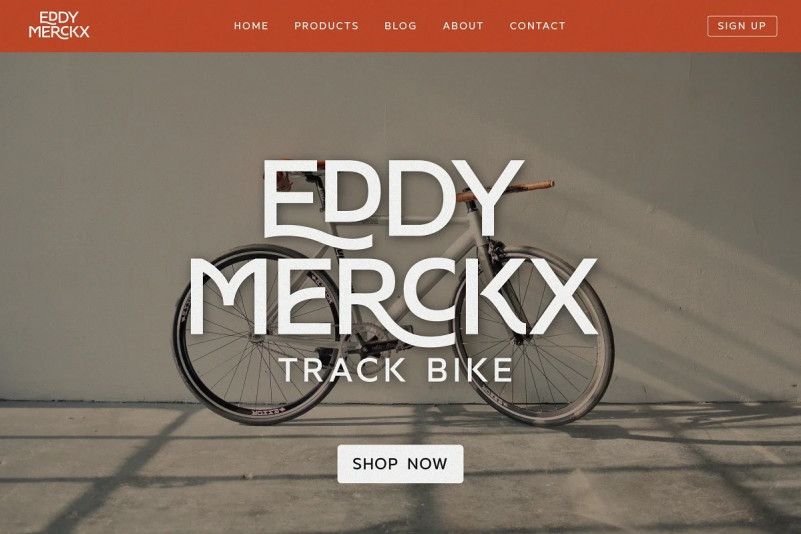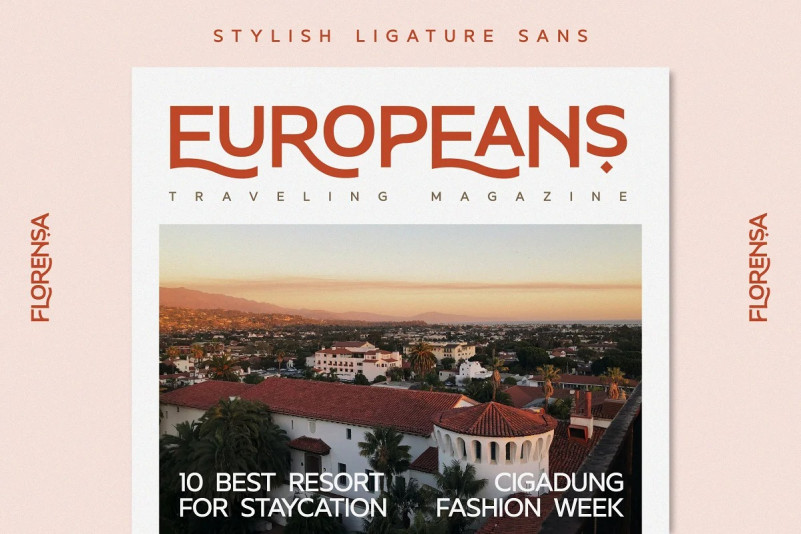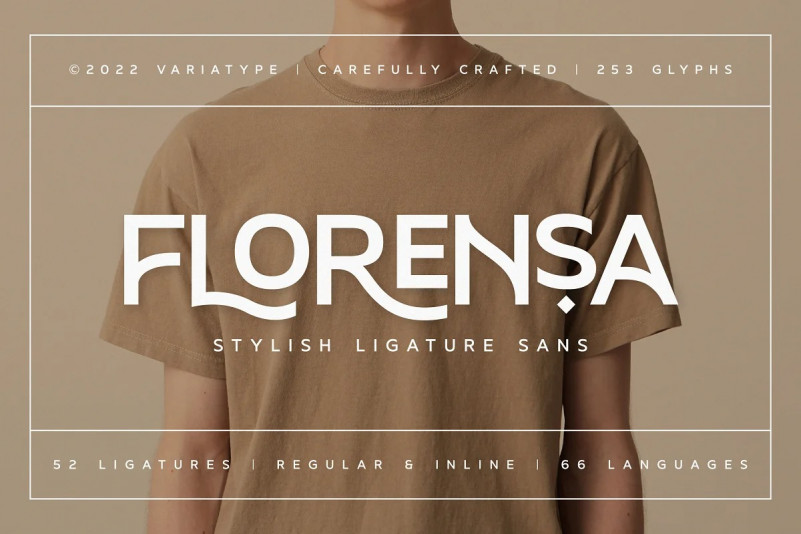
Florensa Sans Serif Font
Florensa was designed carefully with love and passion, created for type poster design, graphic design, logotype, branding, and choose everything you want. Contains more than 50 beautiful ligatures to produce a modern look and playful typography, upgrade your design creativity with Florensa.